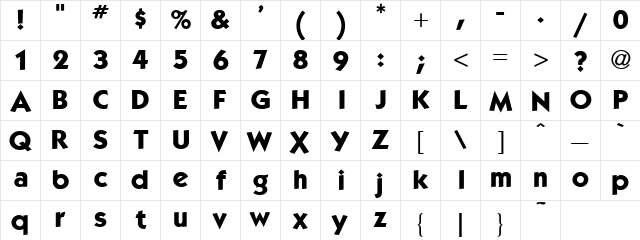
Kacpo Book
Design Context for Kacpo Typeface
Kacpo offers clean, dependable letterforms without strong stylistic allegiance, making it a practical choice for designers who need flexibility.